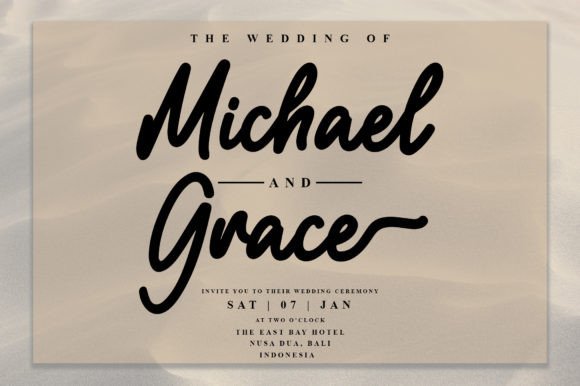
Aesthetic Monoline Font
Aesthetic Monoline is a bold and elegant monoline handwritten script font. It looks beautiful on a variety of designs requiring a personalized style, such as wedding invitations, thank you cards, greeting cards, logos, and so on. This font is PUA encoded which means you can access all the glyphs and ligatures with ease!